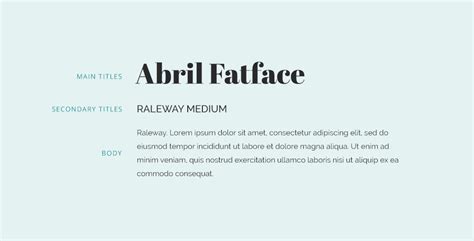
Perfect Pairings for Abril Fatface Font: Elevate Your Designs with These Stunning Combinations
Pairing Abril Fatface font with a complementary sans-serif font creates a sophisticated and modern look for your designs.
When it comes to choosing the right font pairing, there are countless options available, but none quite as unique and versatile as the Abril Fatface font. With its bold, elegant strokes and classic serifs, this typeface commands attention and adds a touch of sophistication to any design project. Whether you're creating a logo, website, or print materials, Abril Fatface is the perfect choice for those who want to make a statement. But what makes this font really stand out is how well it pairs with other fonts, allowing you to create a cohesive and visually stunning design that will leave a lasting impression on your audience.
From elegant script fonts to modern sans-serifs, Abril Fatface can be paired with just about any typeface to create a unique and eye-catching design. Its versatility makes it an ideal choice for a wide range of projects, from branding and advertising to book covers and editorial layouts. Whether you're looking to create a sleek and modern look or a more traditional and classic feel, Abril Fatface has the flexibility to meet your needs.
So if you're looking for a font that will help your designs stand out from the crowd, look no further than Abril Fatface. With its bold and elegant style and endless pairing possibilities, this font is sure to take your designs to the next level.
Introduction
If you’re looking for a font that will make your design stand out from the rest, Abril Fatface is definitely worth considering. This bold and elegant typeface was designed by Veronika Burian and José Scaglione in 2011, and has since become a popular font choice among designers. In this article, we’ll explore some of the best pairing options for Abril Fatface.
Abril Fatface Characteristics
Abril Fatface is a display typeface that’s perfect for headlines, titles, and logos. It’s characterized by its bold and dramatic appearance, with thick serifs and high contrast between thick and thin strokes. Despite its strong personality, Abril Fatface is surprisingly versatile and can be paired with a wide range of fonts to create different moods and styles.
Sans-Serif Pairings
The contrast between Abril Fatface’s thick serifs and thin strokes makes it a great match for sans-serif fonts, which have no serifs at all. When paired with a sans-serif font, Abril Fatface creates a modern and sophisticated look that’s perfect for high-end fashion or luxury brands. Try pairing it with Montserrat or Arial for a clean and contemporary feel.
Serif Pairings
Abril Fatface is a serif font, which means that it has small lines or flourishes at the end of its strokes. When paired with another serif font, Abril Fatface creates a classic and elegant look that’s perfect for traditional or vintage brands. Try pairing it with Baskerville or Times New Roman for a timeless feel.
Script Pairings
For a more playful and whimsical look, try pairing Abril Fatface with a script font. Script fonts are designed to look like handwriting, and can add a personal touch to your design. When paired with Abril Fatface, script fonts create a fun and friendly vibe that’s perfect for children’s brands or casual products. Try pairing it with Pacifico or Dancing Script for a playful feel.
Display Pairings
Abril Fatface is a display font, which means that it’s designed to be used in large sizes for headlines or titles. When paired with another display font, Abril Fatface can create a show-stopping design that’s sure to grab attention. Try pairing it with Bebas Neue or Impact for a bold and powerful look.
Body Text Pairings
While Abril Fatface is best suited for headlines and titles, it can also be used for body text in small doses. When paired with a legible sans-serif font, Abril Fatface can add a touch of personality to your design without sacrificing readability. Try pairing it with Open Sans or Roboto for a balanced look.
Color Pairings
Abril Fatface looks great in any color, but certain color combinations can make your design really pop. Try pairing it with a bold and bright color like red or yellow for a striking look, or pair it with a muted or pastel color for a softer feel. Experiment with different color combinations to find the perfect match for your design.
Conclusion
Abril Fatface is a versatile and eye-catching font that can be paired with a wide range of fonts and colors to create different moods and styles. Whether you’re designing a logo, a website, or a print ad, Abril Fatface is sure to make your design stand out from the crowd. Experiment with different pairings and have fun creating your own unique designs!
Introduction:Abril Fatface is a bold and beautiful serif font that has become increasingly popular in recent years. It is known for its thick lines and elegant curves, making it a versatile choice for various design projects. Font pairing is essential when it comes to creating cohesive and visually appealing designs. Pairing Abril Fatface with other fonts can enhance its beauty and make it stand out even more.The Power of Contrast: Pairing Abril Fatface with Sans Serif FontsOne of the best ways to showcase the beauty of Abril Fatface is by pairing it with a simple, clean sans-serif font. The contrast between the two fonts creates a stunning effect that draws the eye. For example, pairing Abril Fatface with Helvetica creates a modern and minimalist look, while pairing it with Futura creates a more futuristic vibe. The combination of a bold and elegant serif font with a simple and straightforward sans-serif font creates a balance that is both visually appealing and easy to read.Bold and Beautiful: Combining Abril Fatface with Other Serif FontsPairing Abril Fatface with other serif fonts can create a classic and sophisticated look. When choosing a serif font to pair with Abril Fatface, it's essential to consider the weight and style of the font. For example, pairing Abril Fatface with Baskerville creates a timeless look, while pairing it with Bodoni creates a more modern and edgy vibe. The key to making this pairing work is to ensure that the two fonts complement each other and don't compete for attention.A Classic Look: Pairing Abril Fatface with Traditional Typeface FontsIf you're looking to create a design that exudes elegance and timelessness, pairing Abril Fatface with traditional typeface fonts is a great option. Fonts like Garamond, Caslon, and Times New Roman are classic and timeless and work well with Abril Fatface. This pairing creates a sophisticated look that is perfect for projects like wedding invitations, formal event posters, and high-end branding.Statement Making: Using Abril Fatface with Display FontsPairing Abril Fatface with display fonts creates a bold and statement-making design. Display fonts are typically more decorative and eye-catching, making them a perfect fit for Abril Fatface's bold and elegant style. For example, pairing Abril Fatface with Lobster creates a fun and playful look, while pairing it with Bebas Neue creates a strong and impactful design.Playing with Weights: Finding the Perfect Balance with Abril Fatface and Other Bold FontsPairing Abril Fatface with other bold fonts can create a striking and attention-grabbing design. However, it's crucial to find the right balance between the two fonts. Pairing Abril Fatface with a font that is too similar in weight can create a cluttered and overwhelming design. A better option is to pair Abril Fatface with a font that has a different weight, like light or medium. This creates a balance between the two fonts and allows Abril Fatface to stand out even more.Going Minimal: Pairing Abril Fatface with Clean and Simple FontsSometimes, less is more, and pairing Abril Fatface with clean and simple fonts is a great example of this. Pairing Abril Fatface with minimalist fonts like Montserrat or Open Sans creates a clean and modern look that is perfect for projects like website design or digital marketing materials. The simplicity of the fonts allows Abril Fatface to shine and grab the viewer's attention.Old Meets New: Mixing Abril Fatface with Modern and Futuristic FontsPairing Abril Fatface with modern and futuristic fonts creates a unique and visually appealing design. This pairing creates a juxtaposition between the traditional elegance of Abril Fatface and the modern and edgy vibe of the other font. For example, pairing Abril Fatface with Raleway creates a sleek and modern look, while pairing it with Avenir creates a futuristic and sci-fi vibe.Nature Inspired: Creating Harmony with Abril Fatface and Organic-Themed FontsPairing Abril Fatface with fonts that have an organic or nature-inspired feel creates a beautiful and harmonious design. Fonts like Lato or Nunito have a soft and natural feel that pairs well with Abril Fatface's elegant curves. This pairing is perfect for projects like environmental or outdoor-themed branding or event posters.Final Thoughts: Experimenting and Finding Your Own Unique Abril Fatface Font PairingsThe beauty of Abril Fatface is its versatility. There are endless possibilities when it comes to pairing this font with others. The key is to experiment and find what works best for your project. Whether you're looking to create a classic and sophisticated design or a bold and statement-making piece, Abril Fatface can help you achieve your vision. With the right pairing, Abril Fatface can elevate any design project and make it truly unforgettable.As a font pairing enthusiast, I have to say that Abril Fatface font has always caught my attention. Its bold and elegant features make it a great choice for headlines and titles. However, when it comes to pairing it with other fonts, there are some pros and cons to consider.
Pros of Abril Fatface Font Pairing
- Contrast: Abril Fatface font creates a great contrast when paired with a simpler font. It can be used as the main font to catch the reader's attention and the secondary font can be a more legible one.
- Dramatic Effect: The bold and curvy features of Abril Fatface can add a dramatic effect to any design. It's perfect for creating an impact on posters and banners.
- Uniqueness: Abril Fatface is not a common font, and using it in a design can make it stand out from the crowd. It's perfect for brands that want to differentiate themselves from their competitors.
Cons of Abril Fatface Font Pairing
- Legibility: Abril Fatface font can be difficult to read in smaller sizes or longer texts. Using it as the main font for a body text can be overwhelming and tiring for the eyes.
- Compatibility: Not all fonts pair well with Abril Fatface. It's important to choose a font that complements its style and doesn't clash with it.
- Overuse: Using Abril Fatface too much can result in a design that looks overdone and unprofessional. It's important to use it sparingly and only when it's really necessary.
Overall, Abril Fatface font can be a great addition to any design when used properly. Its unique style and bold features make it stand out from other fonts. However, it's important to consider its pros and cons when pairing it with other fonts to ensure a balanced and legible design.
Hey there, fellow typography enthusiasts! If you're here, chances are that you're looking for some inspiration on how to pair the beautiful Abril Fatface font with other typefaces. Well, look no further because we've got some great ideas for you!
First things first, let's talk about what makes Abril Fatface so special. This serif font has a unique combination of elegance and boldness that makes it perfect for headlines and display text. Its high contrast and thick serifs make it stand out, while its graceful curves add a touch of sophistication. When paired with the right font, Abril Fatface can take your designs to the next level.
So, which fonts pair well with Abril Fatface? One great option is a sans-serif font like Open Sans or Montserrat. The clean lines and simplicity of these fonts contrast nicely with Abril Fatface's boldness, creating a modern and stylish look. Another option is to pair Abril Fatface with a serif font that has a similar vibe, such as Playfair Display or Lora. These fonts have a classic elegance that complements Abril Fatface's sophistication.
In conclusion, Abril Fatface is a versatile and stunning font that can elevate any design when paired with the right typeface. Experiment with different combinations and see what works best for your project. We hope these tips have inspired you to try something new and create something beautiful!
When it comes to choosing the perfect font pairing for your design, it can be a daunting task. One popular font that people often ask about is Abril Fatface. This elegant serif font has gained popularity in recent years and is well-loved for its unique style.
If you're wondering what fonts pair well with Abril Fatface, here are some suggestions:
1. Open Sans
- This sans-serif font is a great pairing for Abril Fatface because it provides a clean and modern contrast.
- Its versatility makes it easy to use for both headings and body text.
2. Lora
- Lora is another serif font that complements Abril Fatface beautifully.
- It has a similar feel to Abril Fatface but is more subdued, making it a great choice for body text.
3. Montserrat
- If you're looking for a font pairing that is more modern and bold, Montserrat is a great option.
- This sans-serif font has a geometric feel that pairs well with Abril Fatface's elegance.
Overall, when it comes to pairing fonts with Abril Fatface, it's important to find a font that complements its unique style without overpowering it. Experiment with different combinations to see what works best for your design!